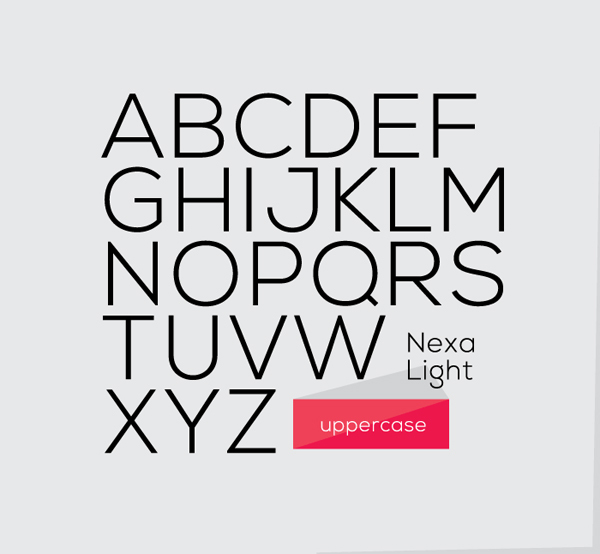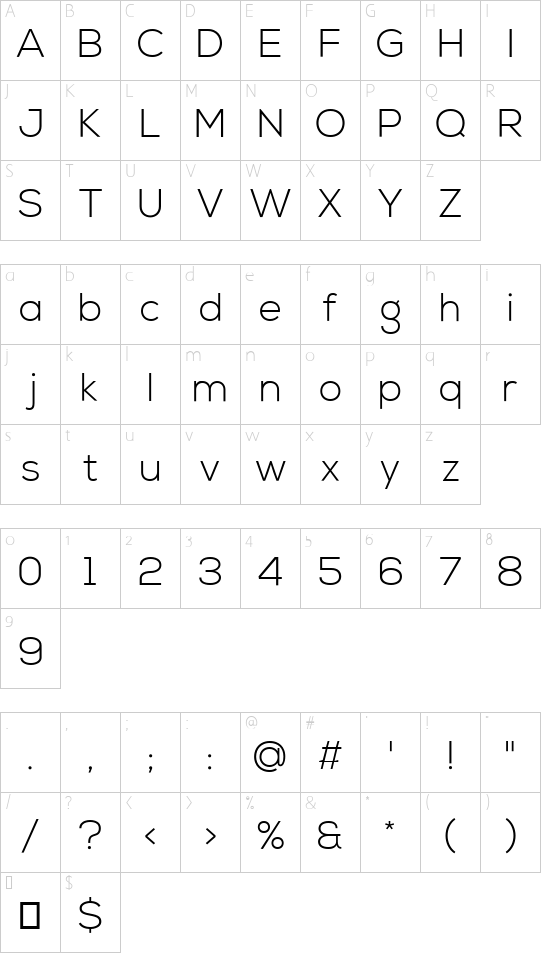
Nexa Light Font
Nexa Light Font - Web nexa font styles are applicable for any type of graphic design of digital, web, print, hard surfaces, fabrics. 100% nexa light font—get the single font or the whole nexa font family @ fontfabic.com. Web nexa light is a modern sans serif font family with a geometric touch, available in 9 weights and 36 styles. Web for more information, please read our. Web showing results for ‘nexa light’ families 4 more font families. Web the completely refined family design comes with an addition of one more weight—extra light—and its matching italic, alongside an. • cyrillic language support • bulgarian.
Web nexa light is a modern sans serif font family with a geometric touch, available in 9 weights and 36 styles. 100% nexa light font—get the single font or the whole nexa font family @ fontfabic.com. Web nexa font styles are applicable for any type of graphic design of digital, web, print, hard surfaces, fabrics. Web showing results for ‘nexa light’ families 4 more font families. Web the completely refined family design comes with an addition of one more weight—extra light—and its matching italic, alongside an. Web for more information, please read our. • cyrillic language support • bulgarian.
Web the completely refined family design comes with an addition of one more weight—extra light—and its matching italic, alongside an. Web for more information, please read our. 100% nexa light font—get the single font or the whole nexa font family @ fontfabic.com. Web nexa font styles are applicable for any type of graphic design of digital, web, print, hard surfaces, fabrics. • cyrillic language support • bulgarian. Web showing results for ‘nexa light’ families 4 more font families. Web nexa light is a modern sans serif font family with a geometric touch, available in 9 weights and 36 styles.
Web nexa light is a modern sans serif font family with a geometric touch, available in 9 weights and 36 styles. 100% nexa light font—get the single font or the whole nexa font family @ fontfabic.com. Web the completely refined family design comes with an addition of one more weight—extra light—and its matching italic, alongside an. • cyrillic language support.